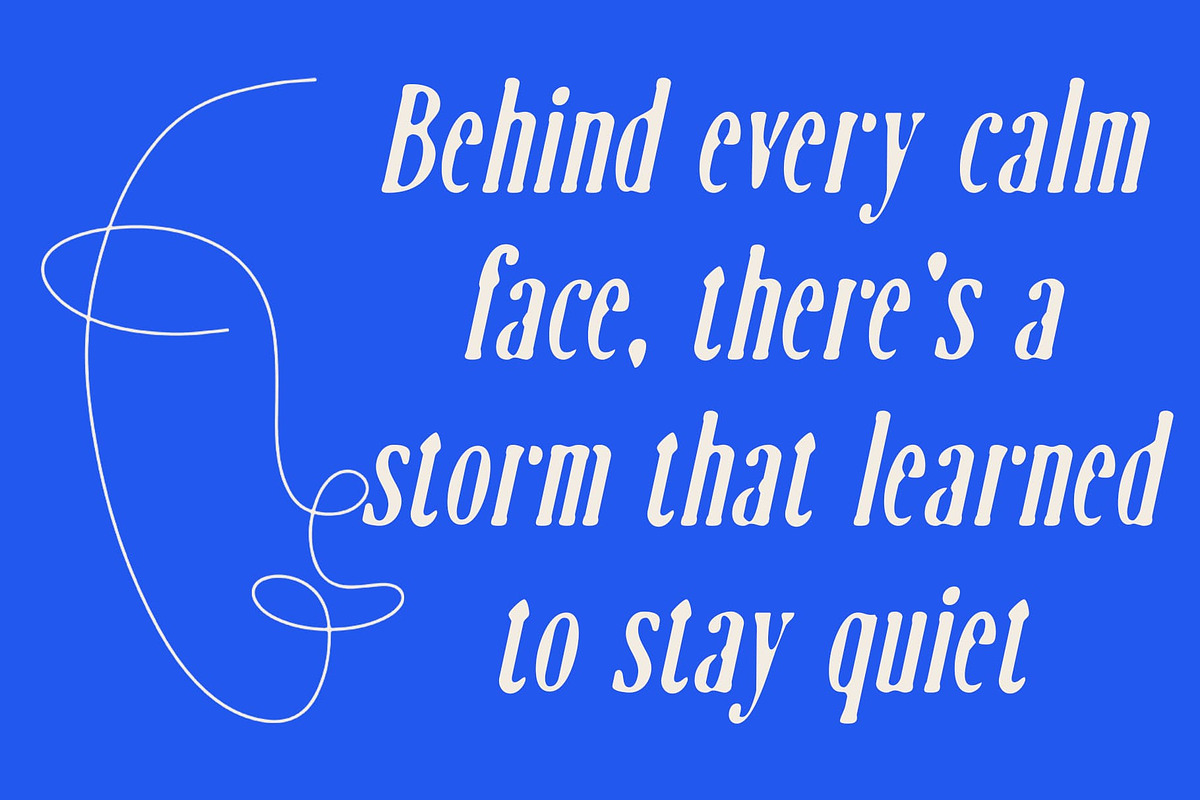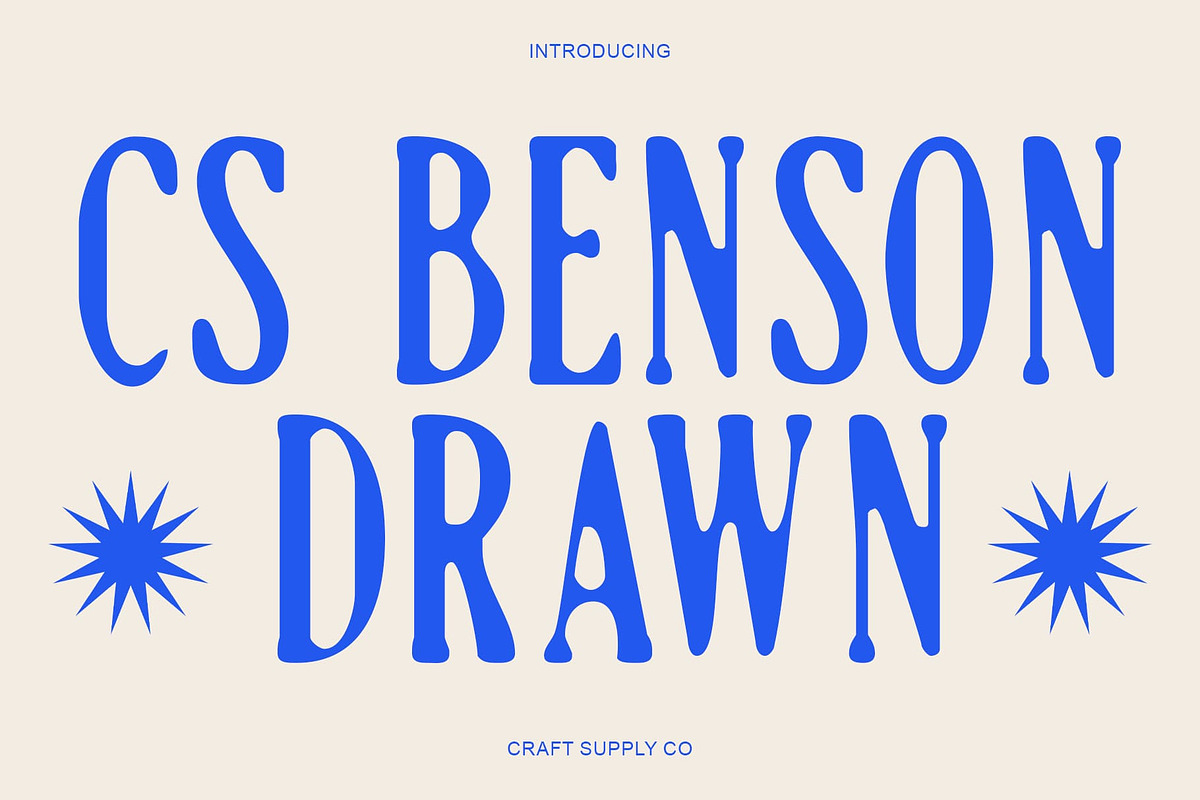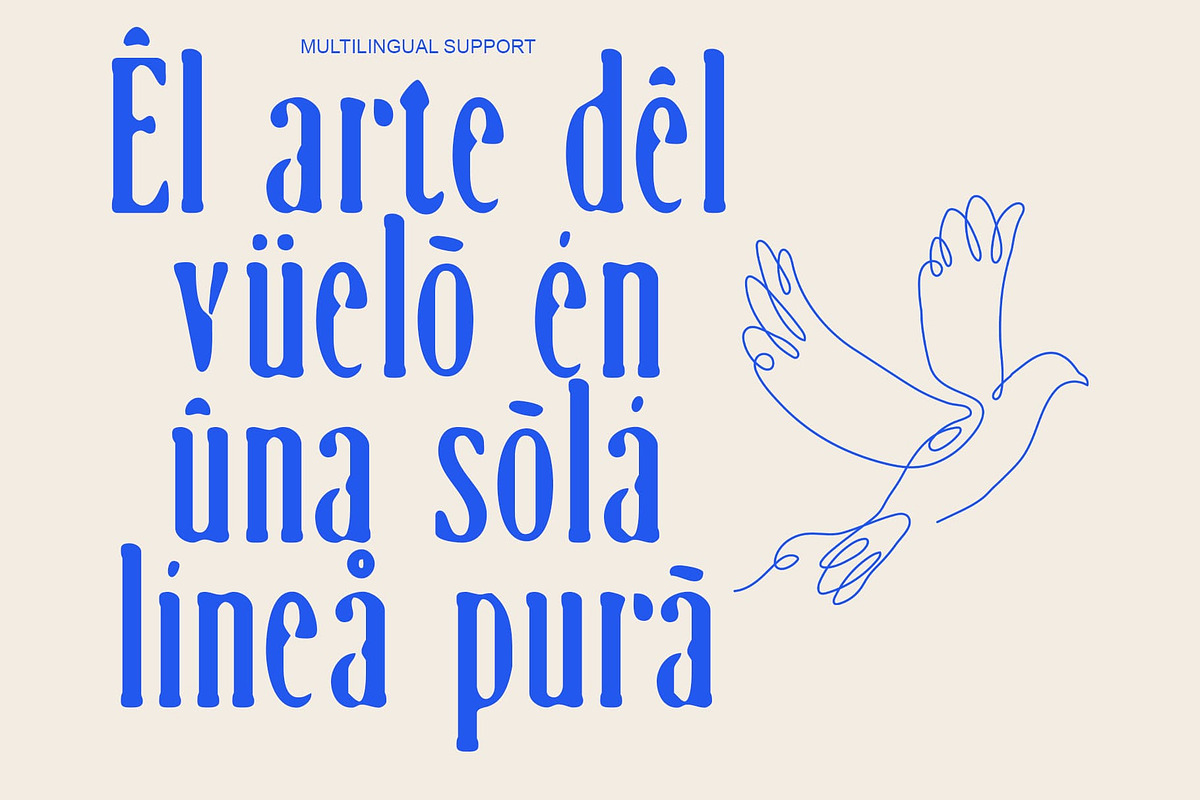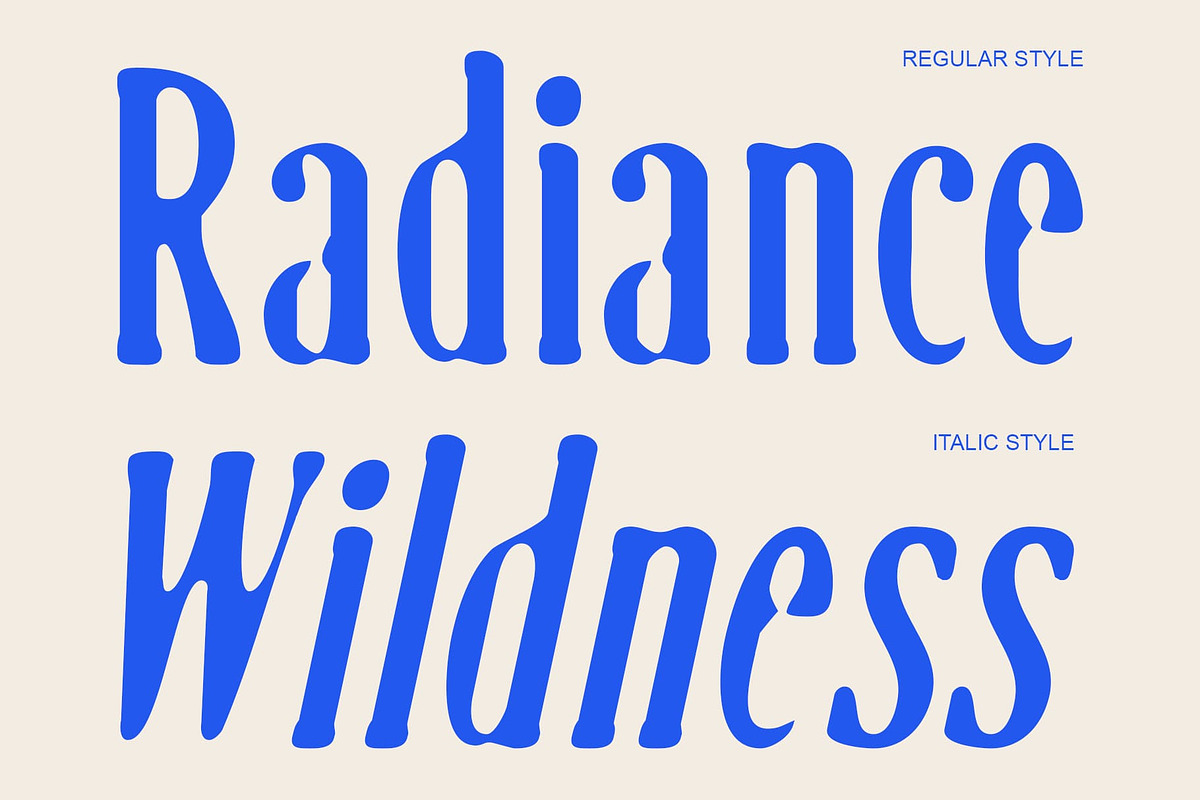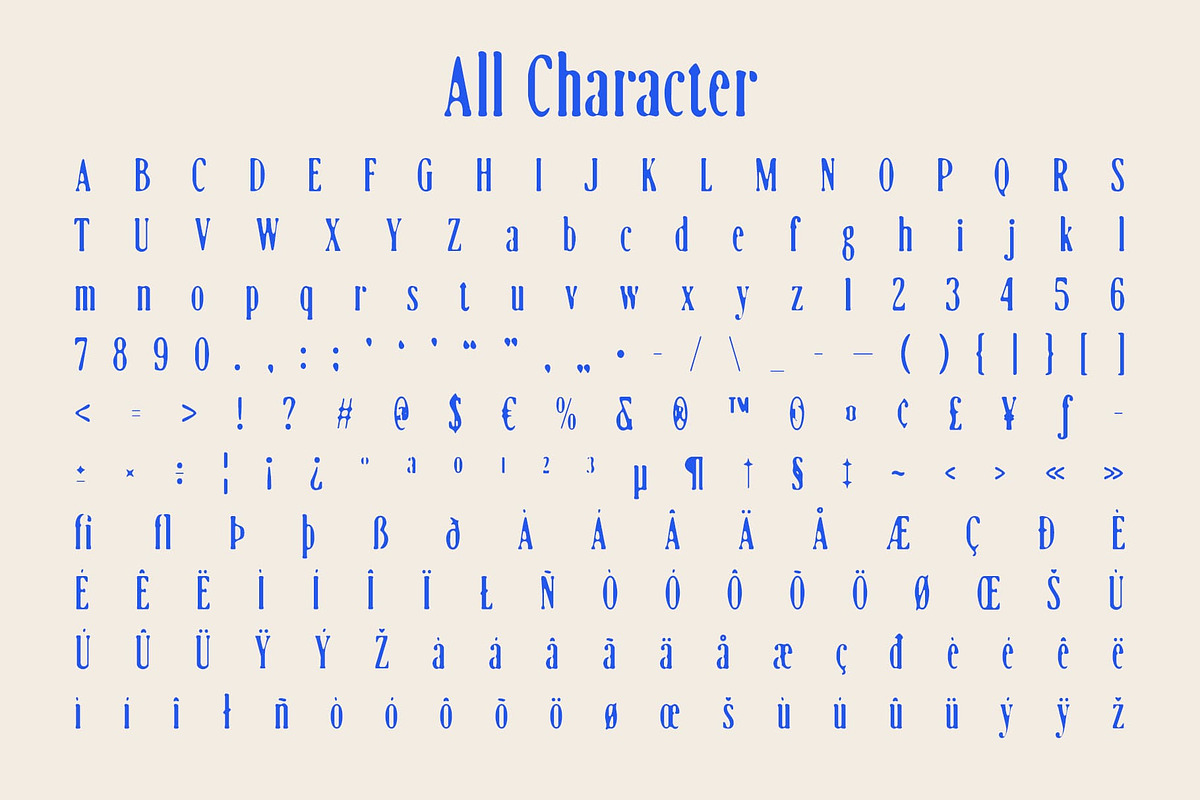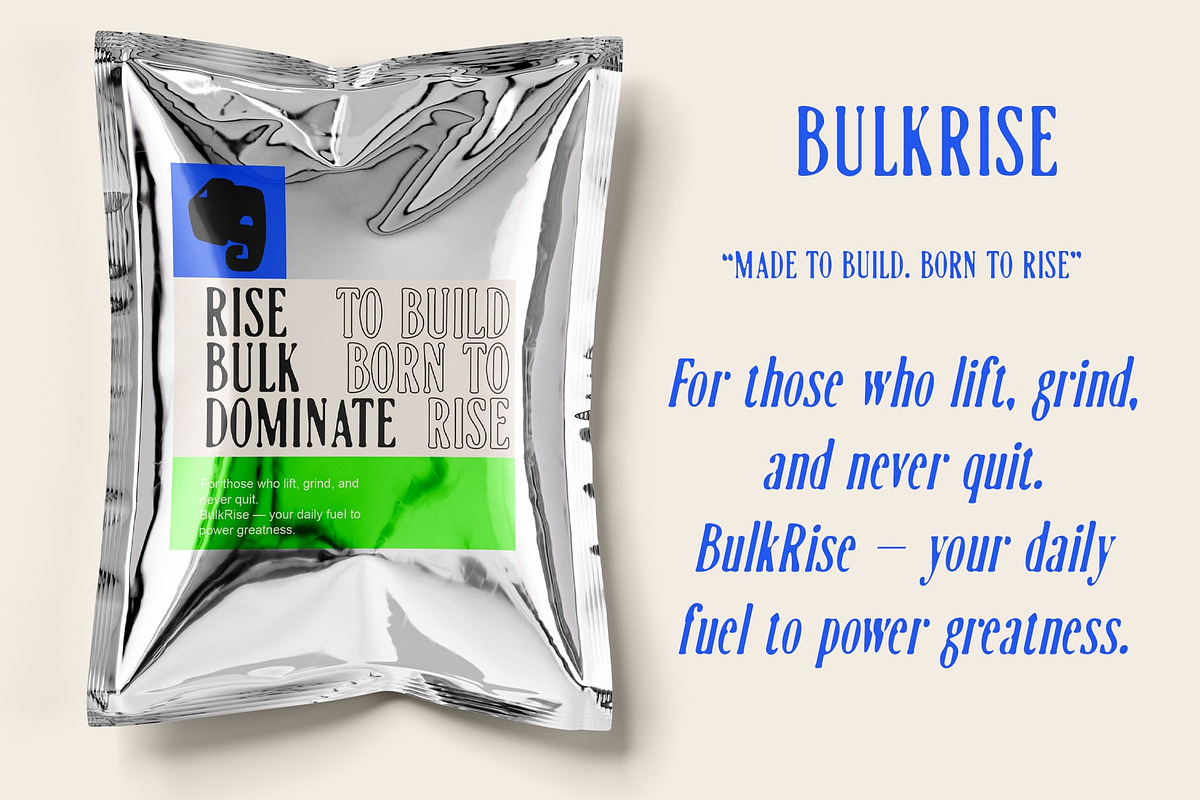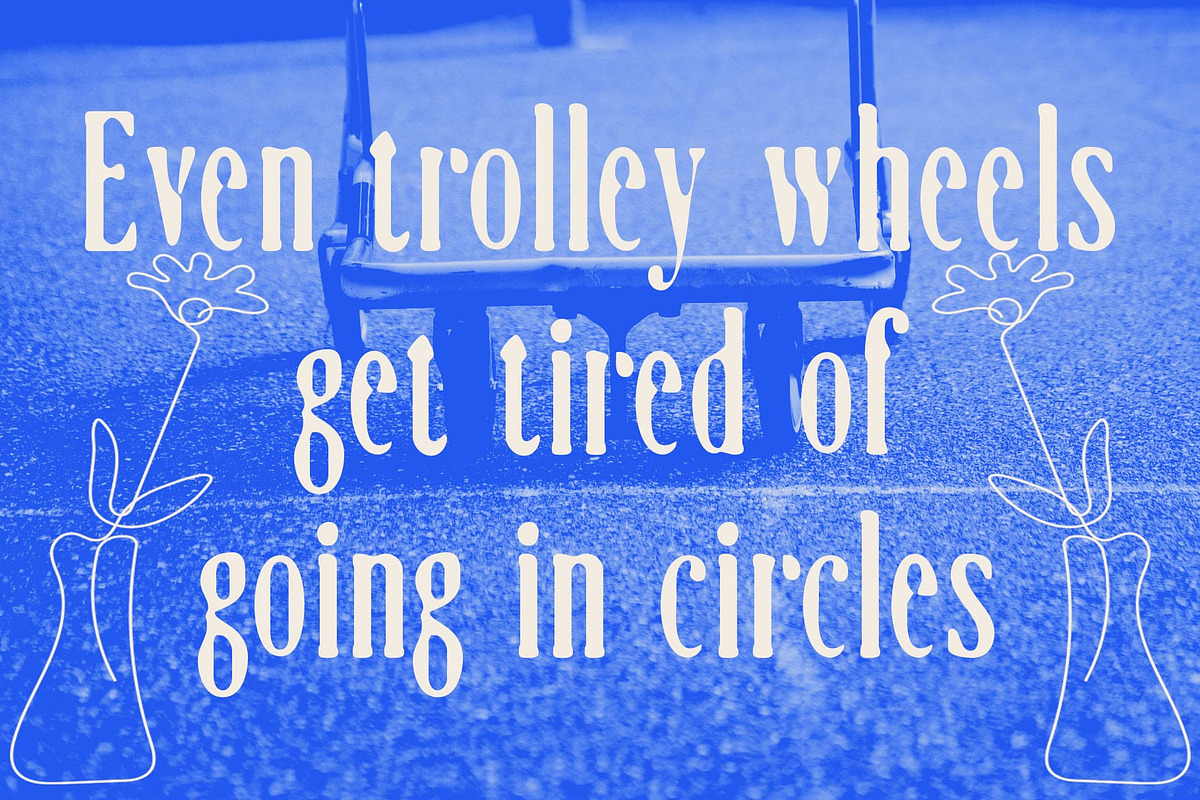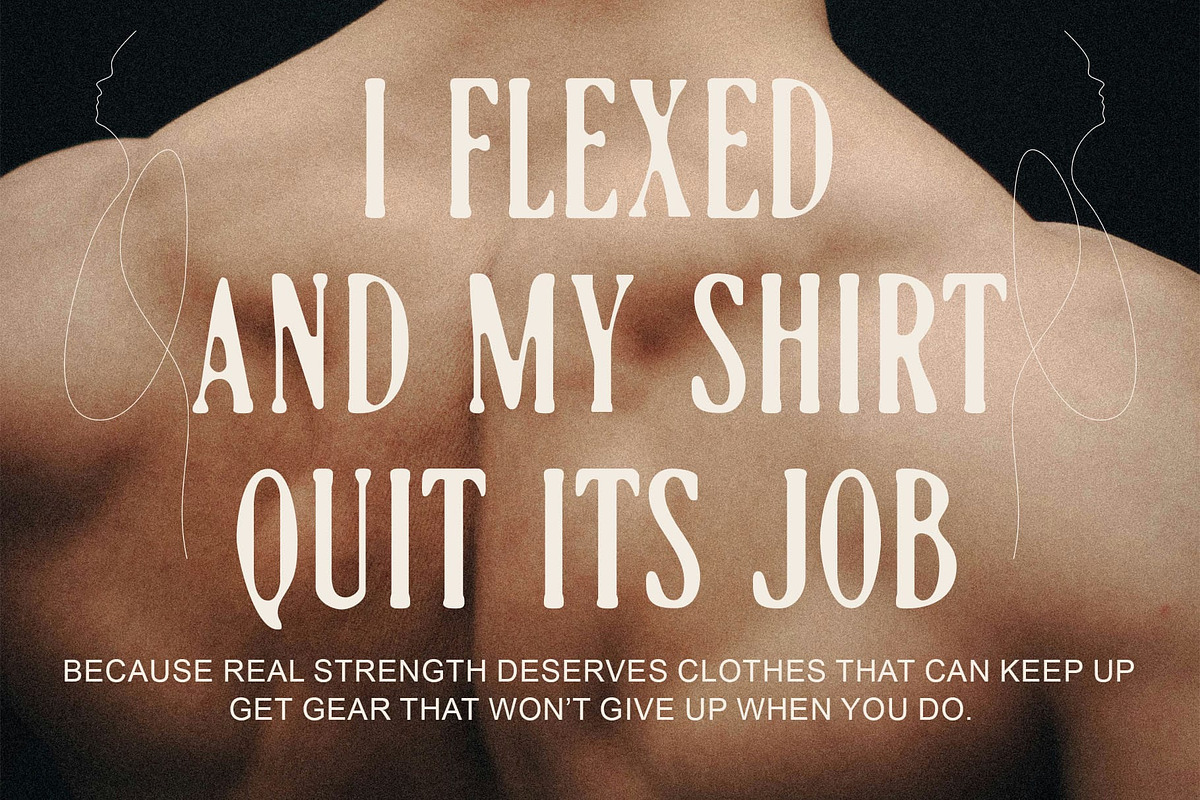
CS Benson Drawn
CS Benson Drawn – Condensed Modern Serif with Drawn Texture
Elegant Form with Contemporary Style This is a condensed modern serif font defined by its long, slim serifs and graceful proportions. Its refined structure exudes sophistication, making it a perfect choice for designers who seek a font that communicates elegance with a sleek, modern sensibility.
Hand-Drawn Texture for Authentic Character The drawn handmade texture introduces a subtle organic charm, giving each letter a touch of individuality and warmth. This handcrafted element balances the precision of its design, creating a visual harmony between modern refinement and creative imperfection.
Slim Proportions for Distinctive Appeal With its condensed form and elongated details, This font maximizes visual impact while maintaining readability. The tall letterforms project confidence and sophistication, ensuring your typography stands out with clarity and poise.
Perfect for Luxury Branding and Editorial Design Ideal for luxury branding, posters, and editorial layouts, this font combines artistry with professionalism. Its blend of elegance and handmade character adds depth and distinction, making it a timeless choice for sophisticated and expressive design projects.